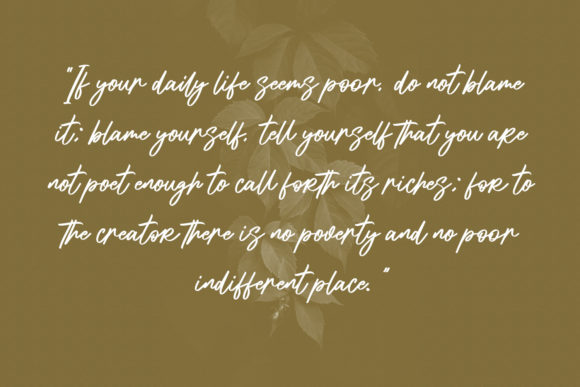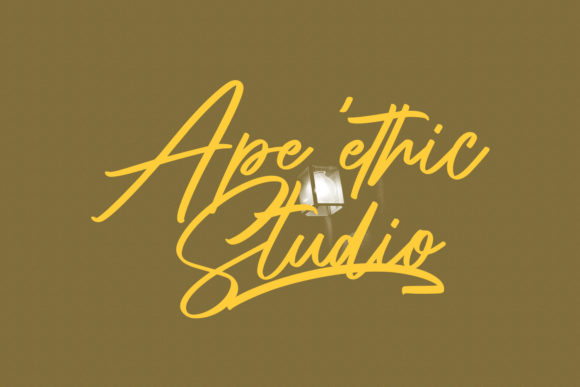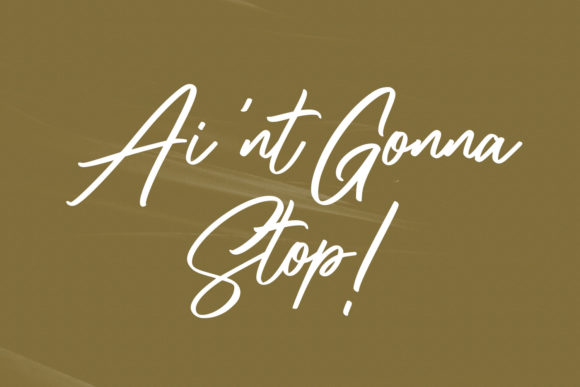
Introduction to Shadyspeed Script Font Font
Have you ever stared at a blank canvas, waiting for inspiration to strike? The blank page, a blank screen, or a blank canvas can be intimidating, but what if I told you that the right font can spark a creative project into life? For designers, the perfect font can be the difference between a mediocre design and a masterpiece. That’s where the Shadyspeed Script Font Font comes in – a signature script font that’s sure to elevate your creative work.
This high-quality design resource boasts a fun and playful character, complete with ligatures and swashes that add a touch of sophistication. Whether you’re working on a logo design, social media graphics, movie titles, or book titles, the Shadyspeed Script Font Font is a versatile and valuable tool in your design arsenal. And the best part? It’s available for free download, making it an accessible resource for designers of all levels.
Key Features of Shadyspeed Script Font Font
- High-quality design resource for creative projects, ideal for adding a personal touch
- Unique, hand-drawn style that adds a touch of elegance and sophistication to any design
- Perfect for use in digital design, print materials, and even as a design element in web design projects
Honest Review: Shadyspeed Script Font Font
As a designer, I’m always on the lookout for high-quality design resources to elevate my creative projects. I recently stumbled upon the Shadyspeed Script Font Font, and I’m excited to share my honest review with you.
Here are the things that I love about this font:
- ✨ The Shadyspeed Script Font Font has a beautiful, handwritten feel that’s perfect for adding a touch of elegance to your designs.
- ⚠️ The font may not be suitable for all design projects, particularly those that require a more formal or corporate tone.
Overall, I’m really impressed with the Shadyspeed Script Font Font. It’s a high-quality design resource that’s perfect for creative projects, and the free download makes it an absolute steal. With a little bit of creativity, you can use this font to add some real flair to your designs.
Shadyspeed Script Font Font is ideal for creating eye-catching titles, quotes, and headings for your creative projects. You can also use it for crafting custom logos, social media graphics, and marketing materials.